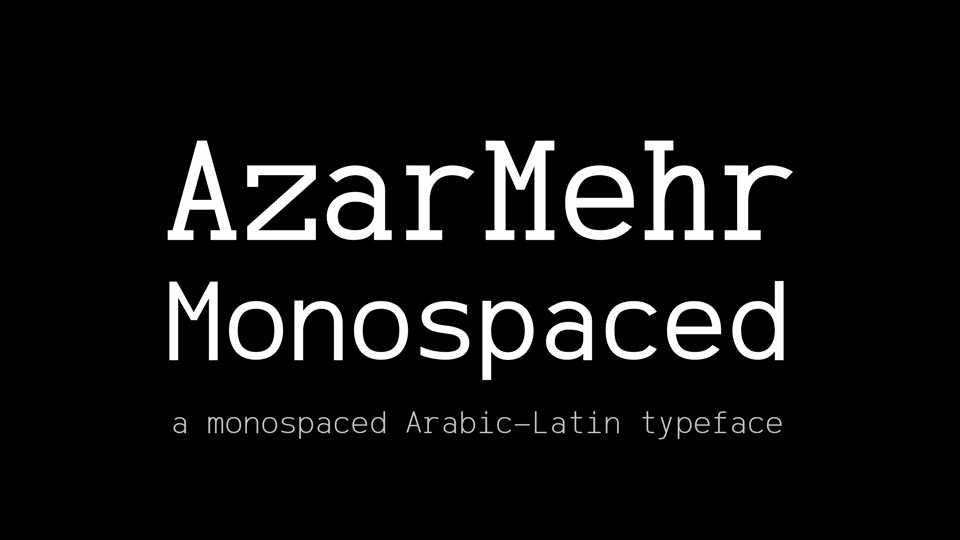
AzarMehr Monospaced Font Family › Fontesk – Download Grátis
Download AzarMehr Monospaced typeface, a monospaced sans and serif font family for Arabic and Latin. It also has a great arched background font.
Designer: Amin Abedi